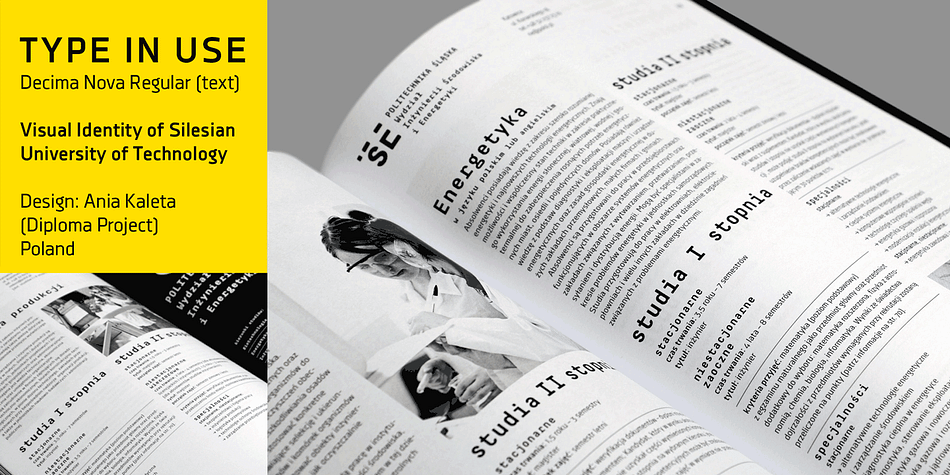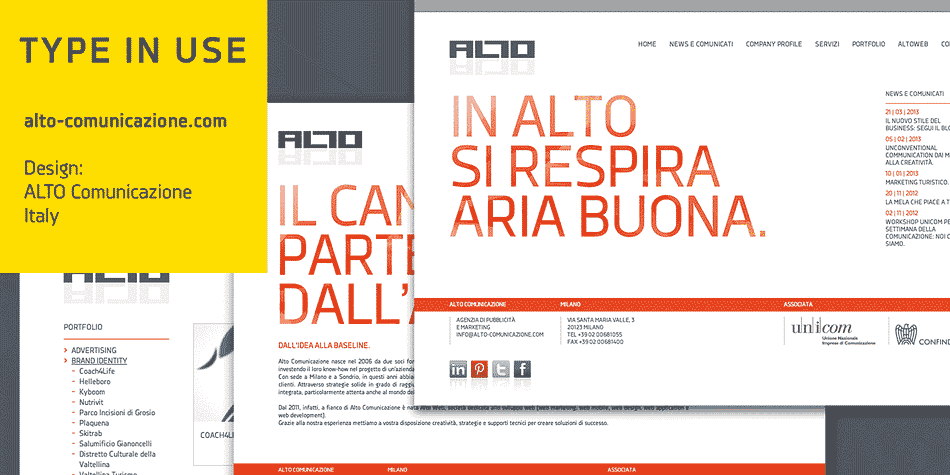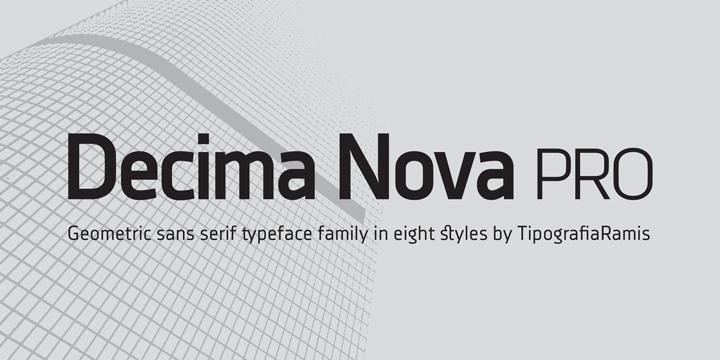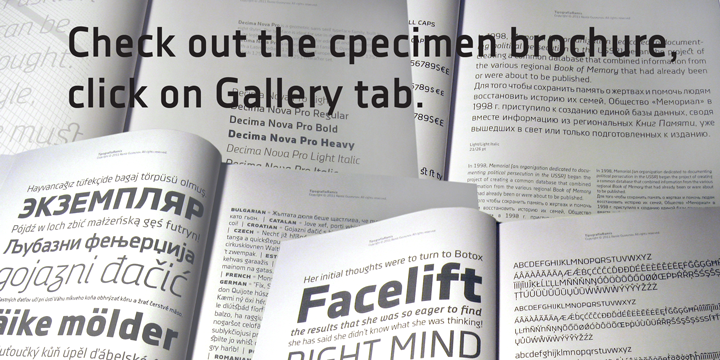
Designed by Ramiz Guseynov, Decima Nova Pro is a sans serif font family. This typeface has eight styles and was published by TipografiaRamis.
Decima Nova Pro is a geometric sans serif typeface family, built in eight styles. The typeface is ideal for use in display sizes, but also is quite legible in text and is well suited for editorial and brand design.
Features include extended language support, small caps, multiple numeral styles, slashed zero, ligatures…